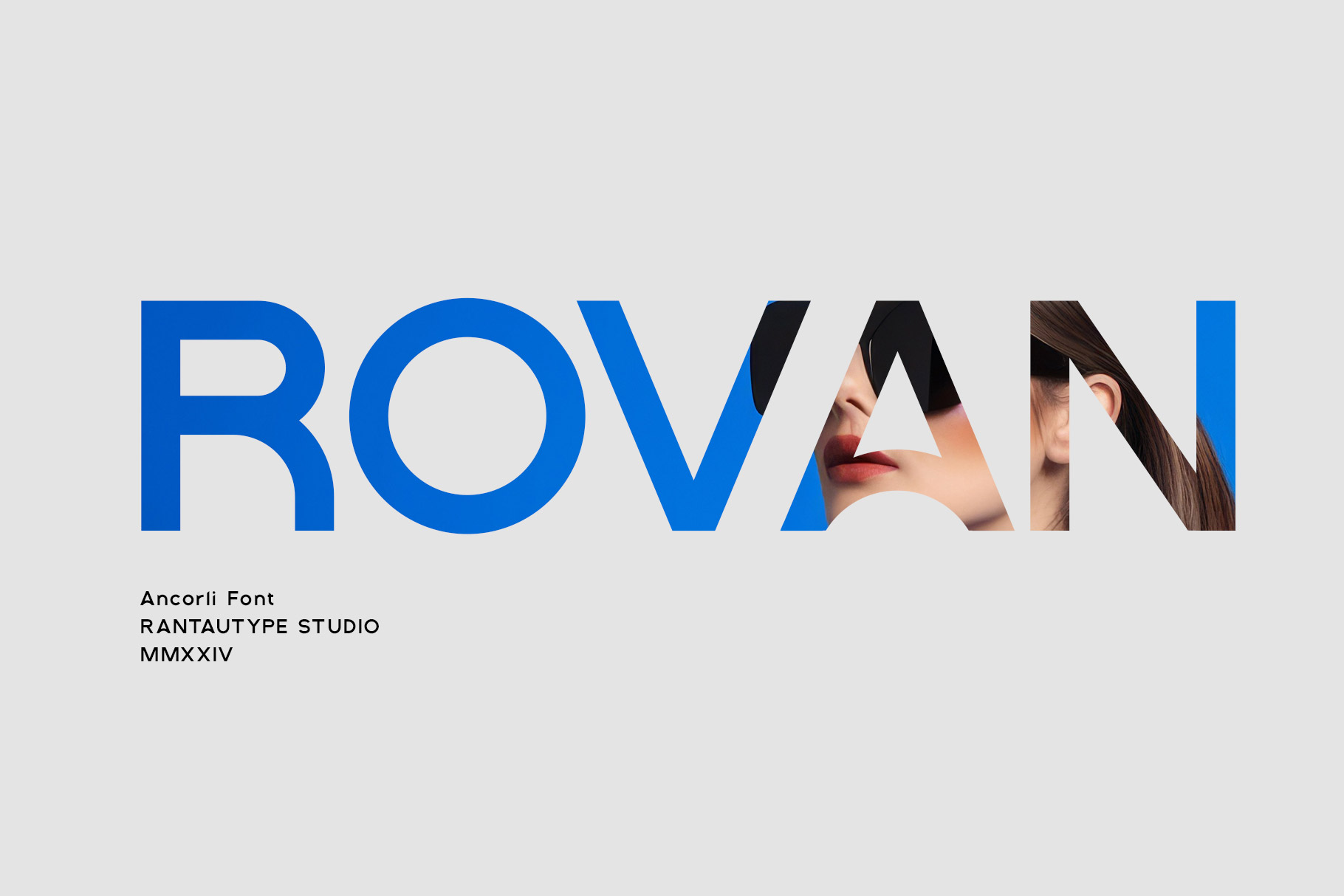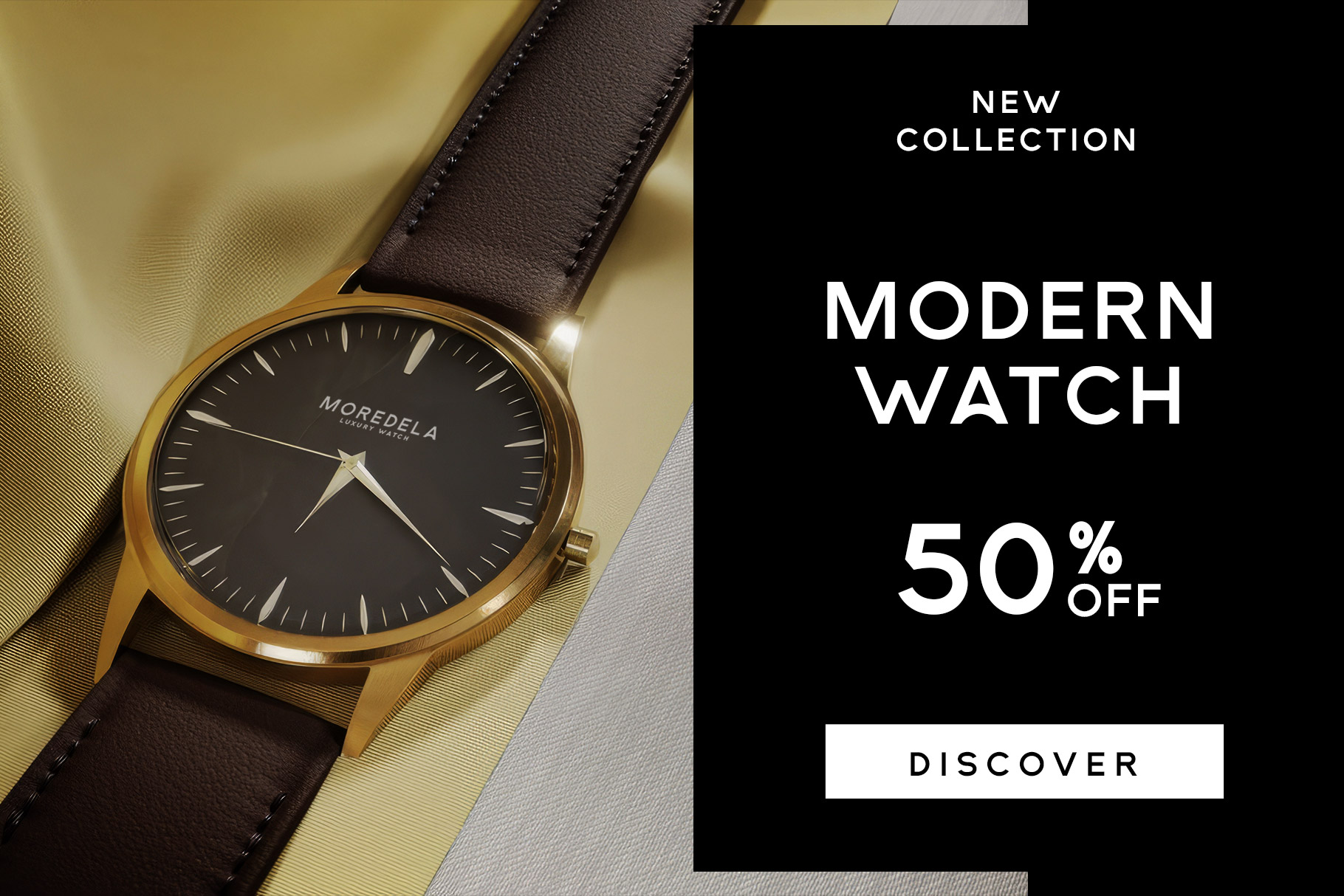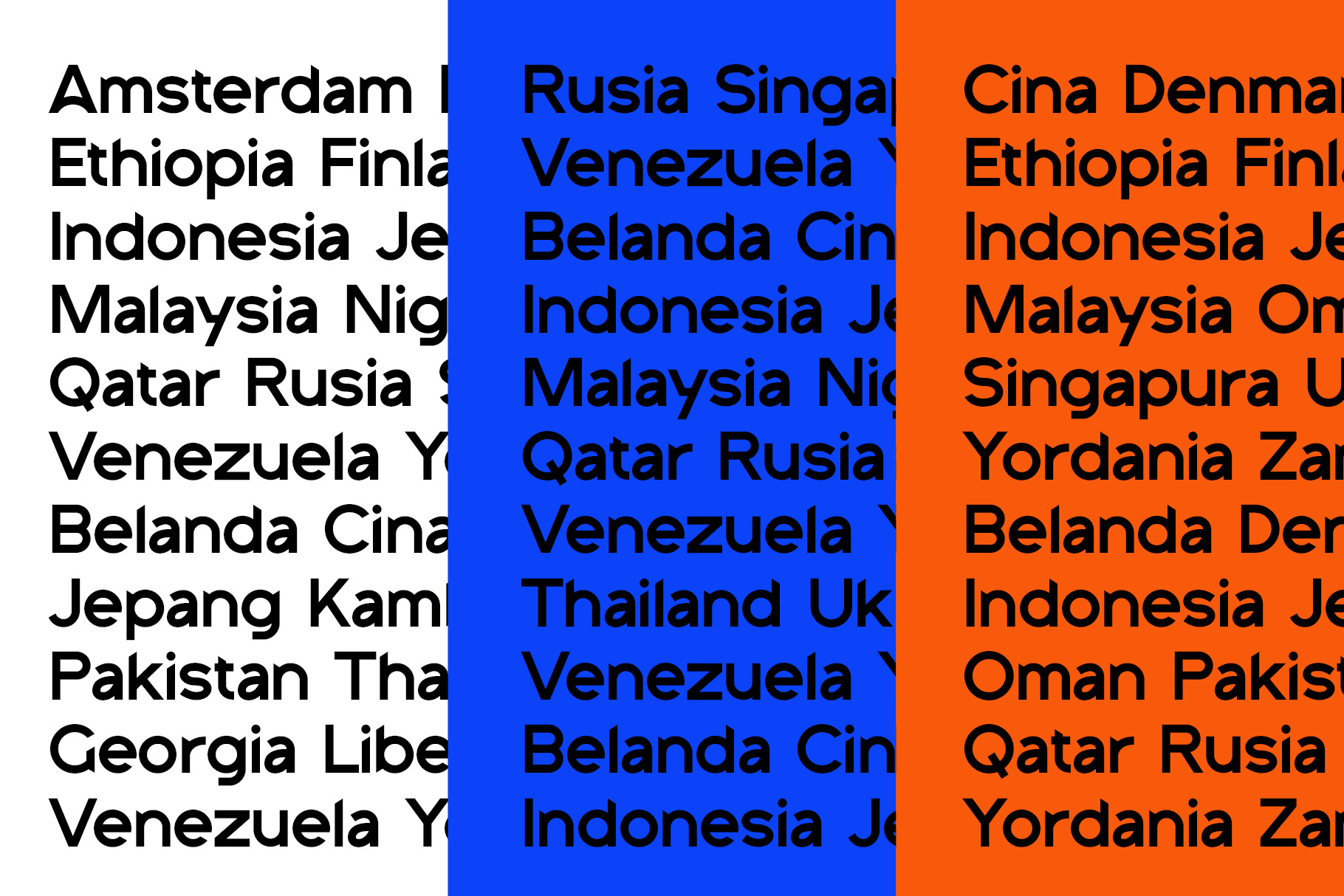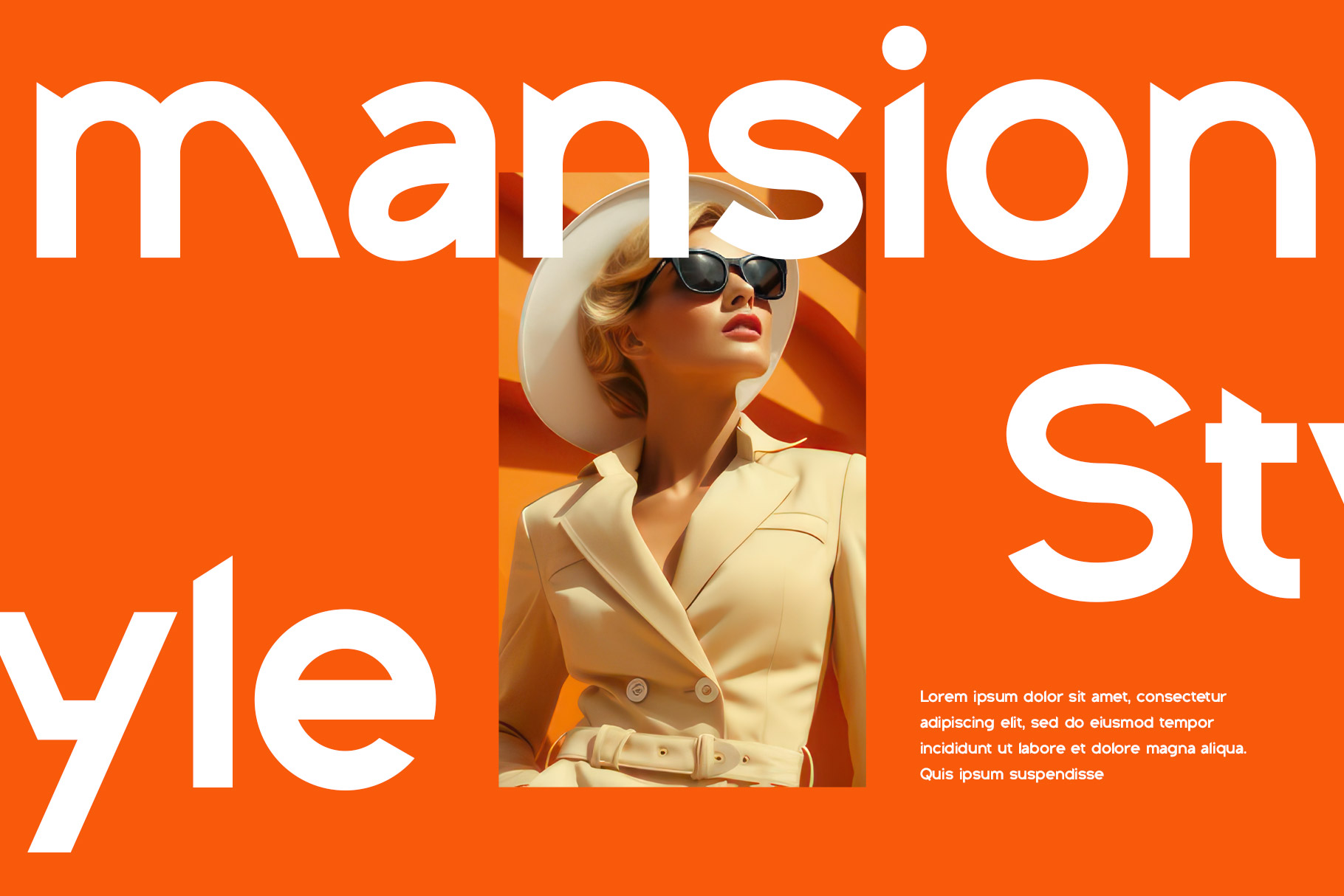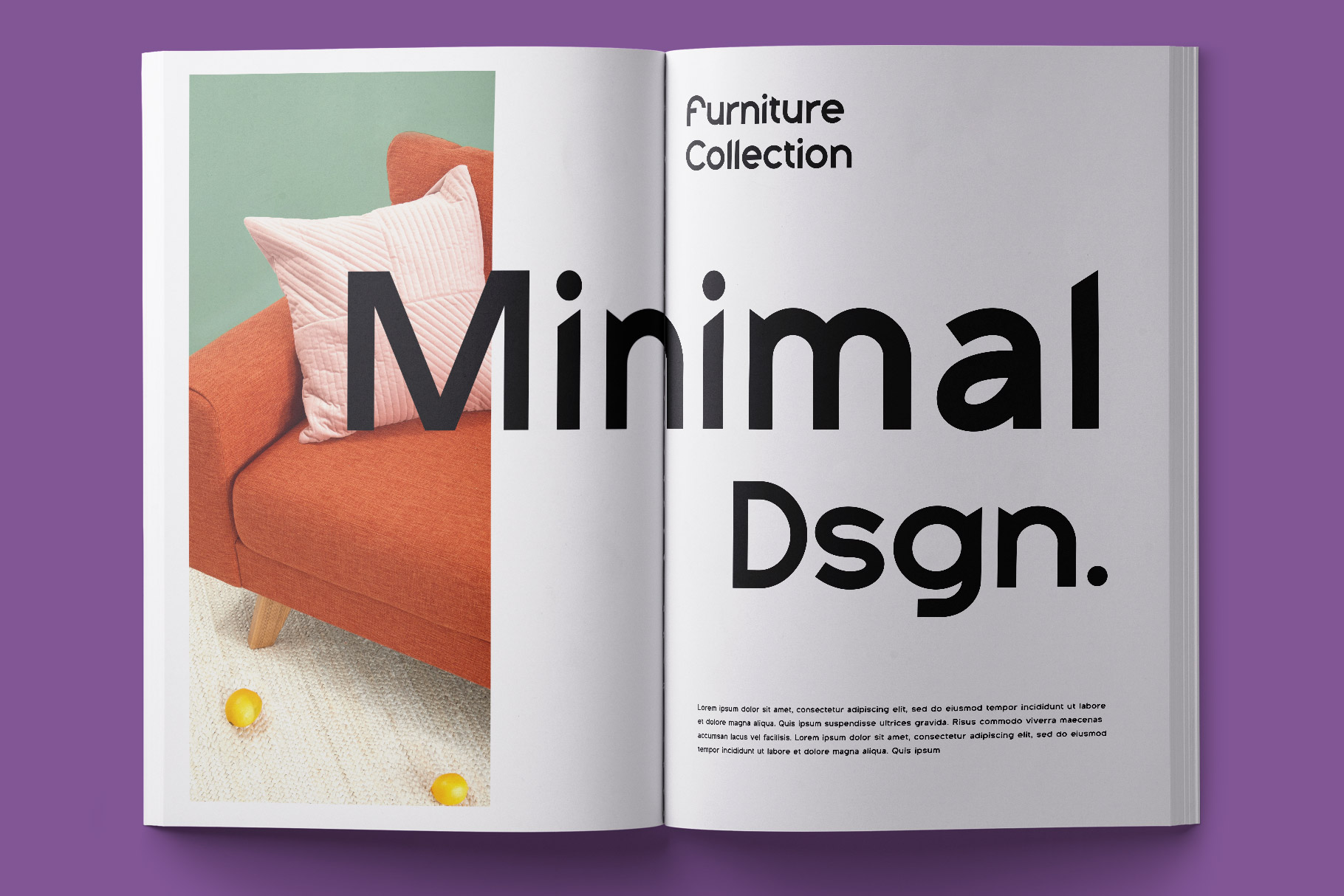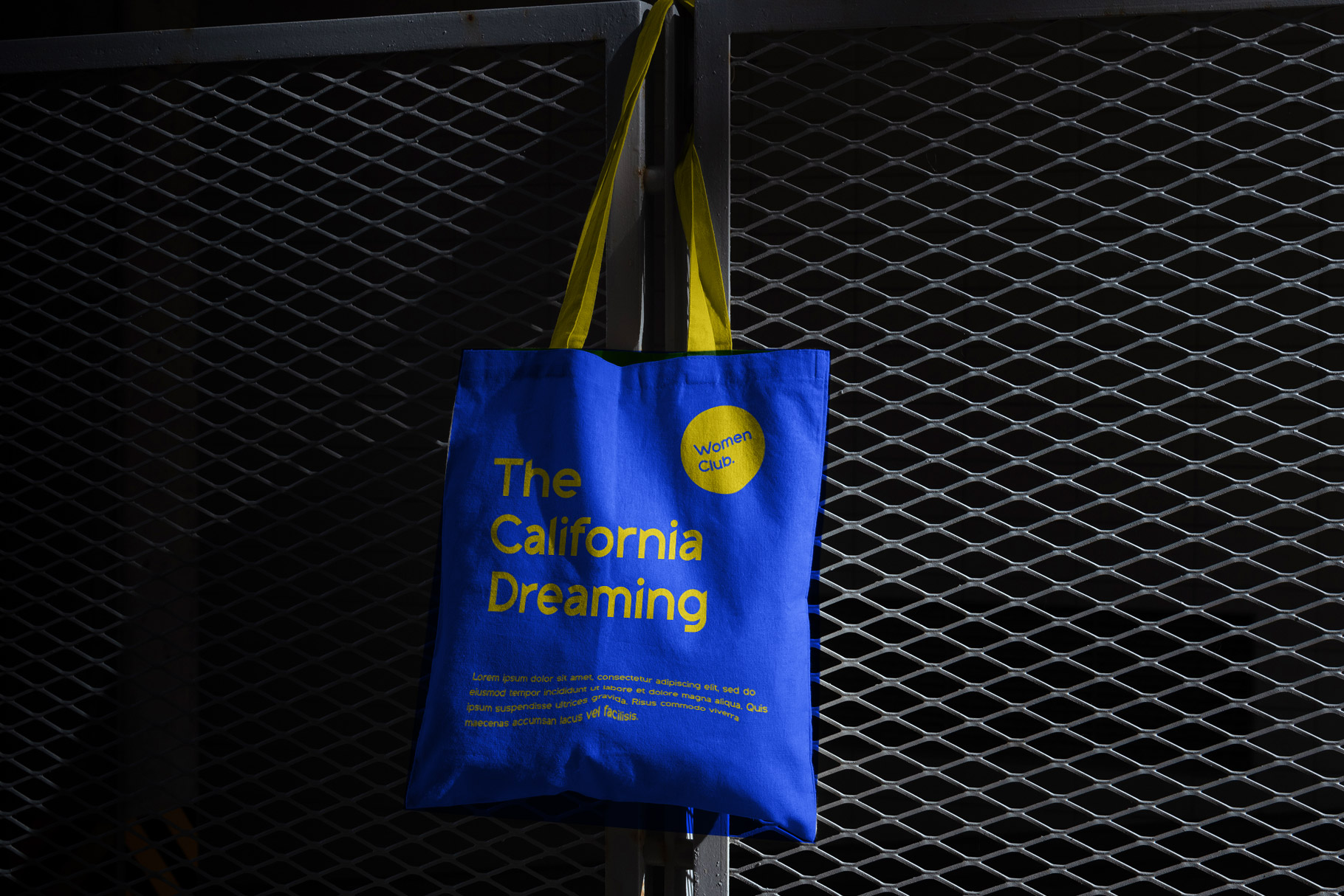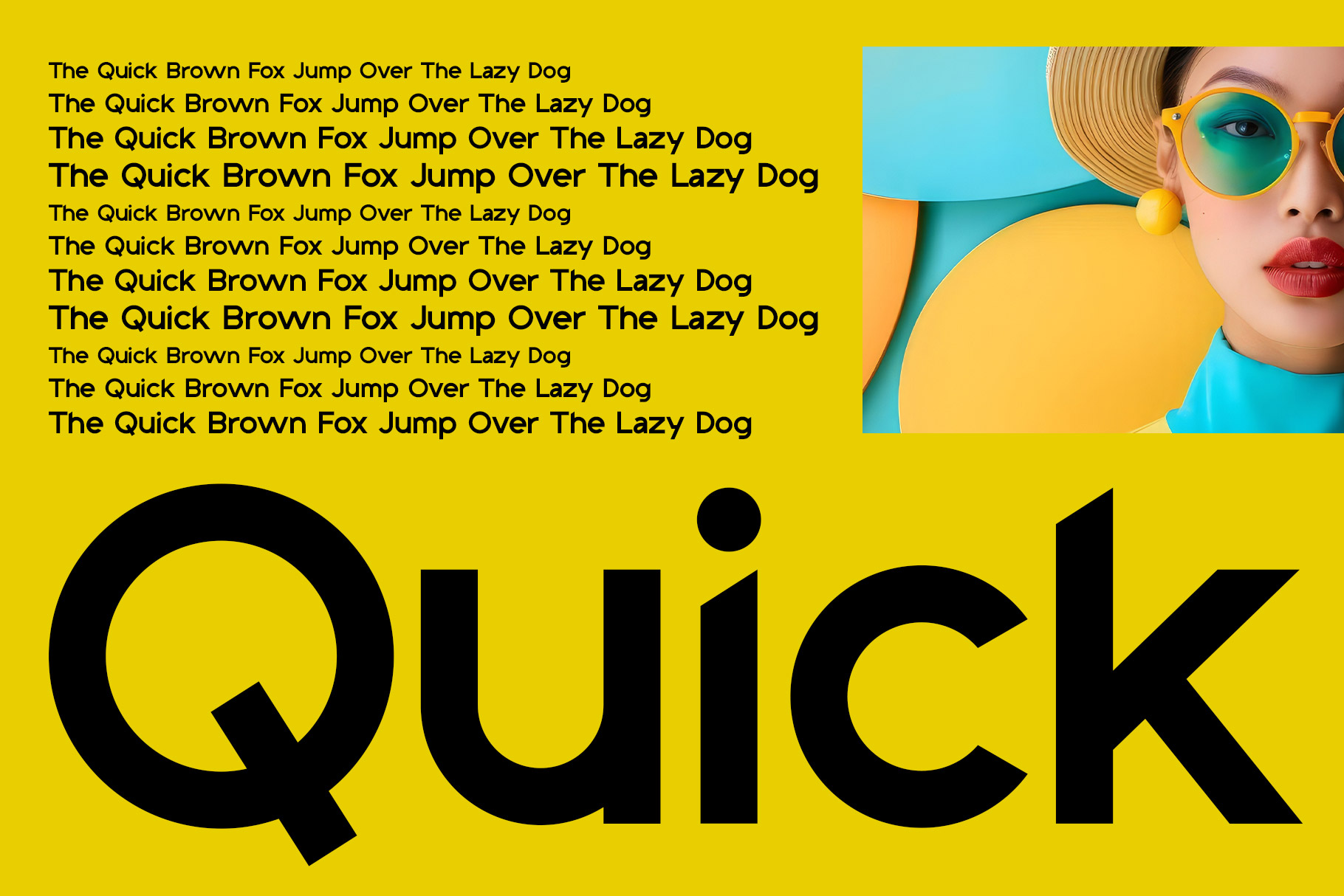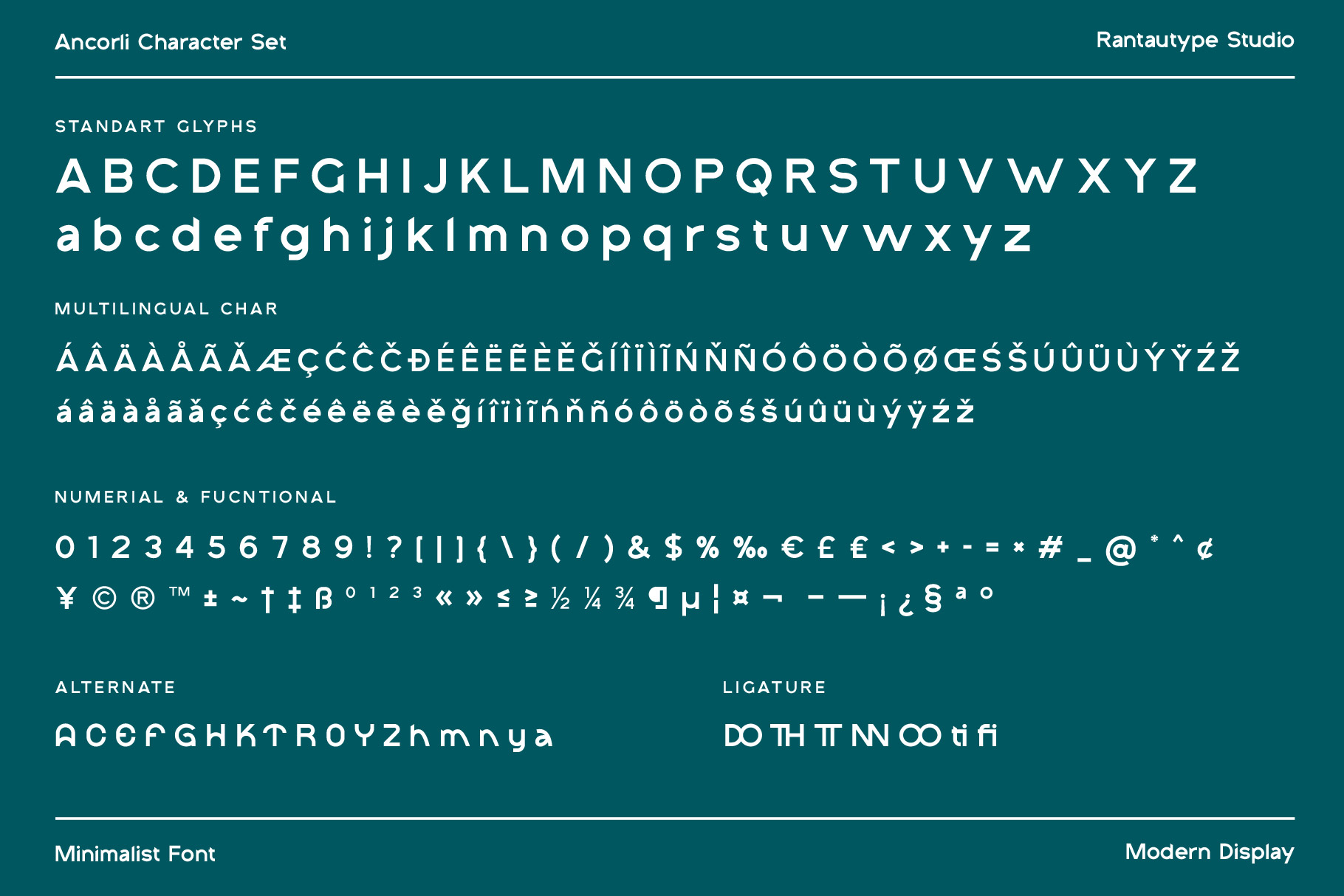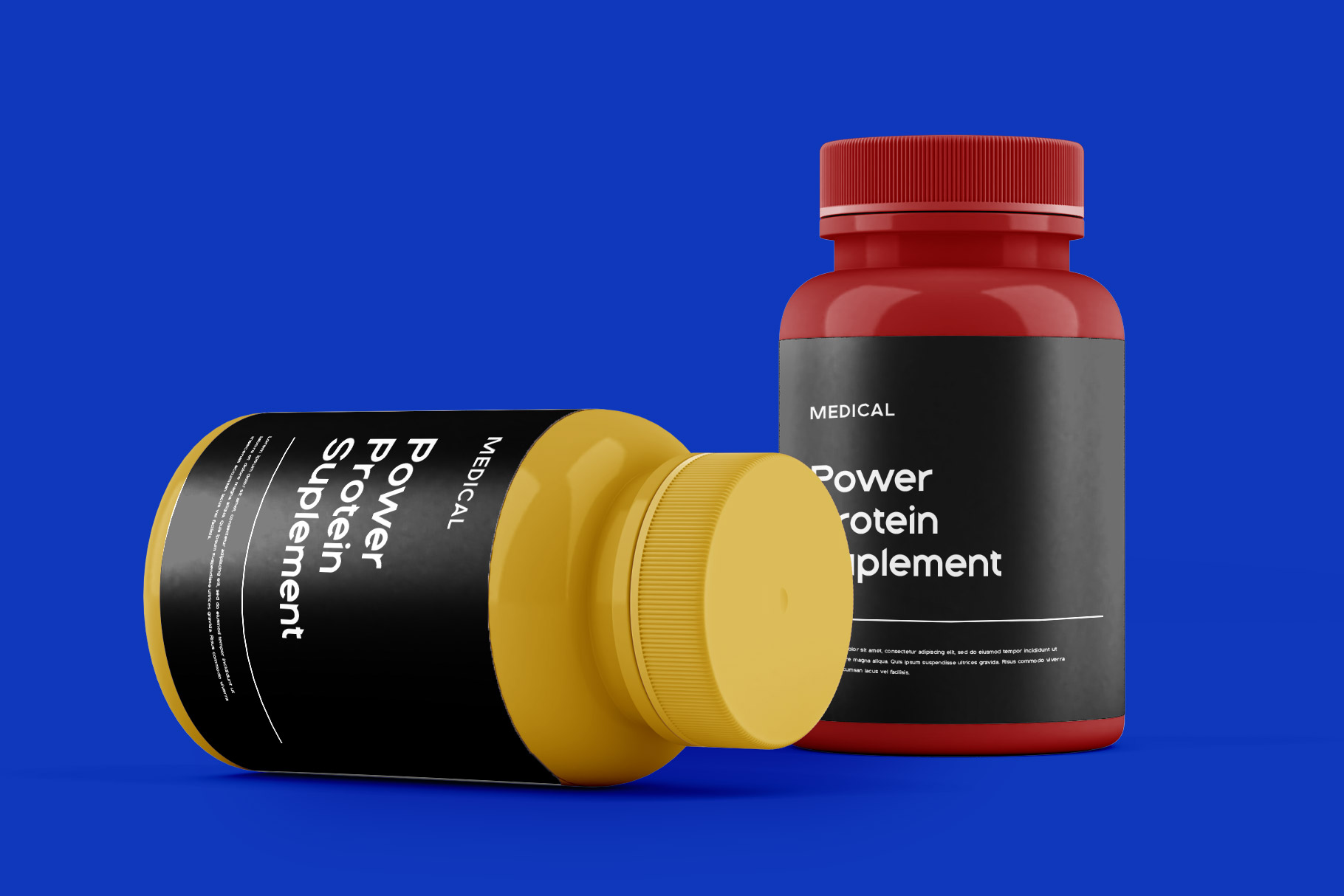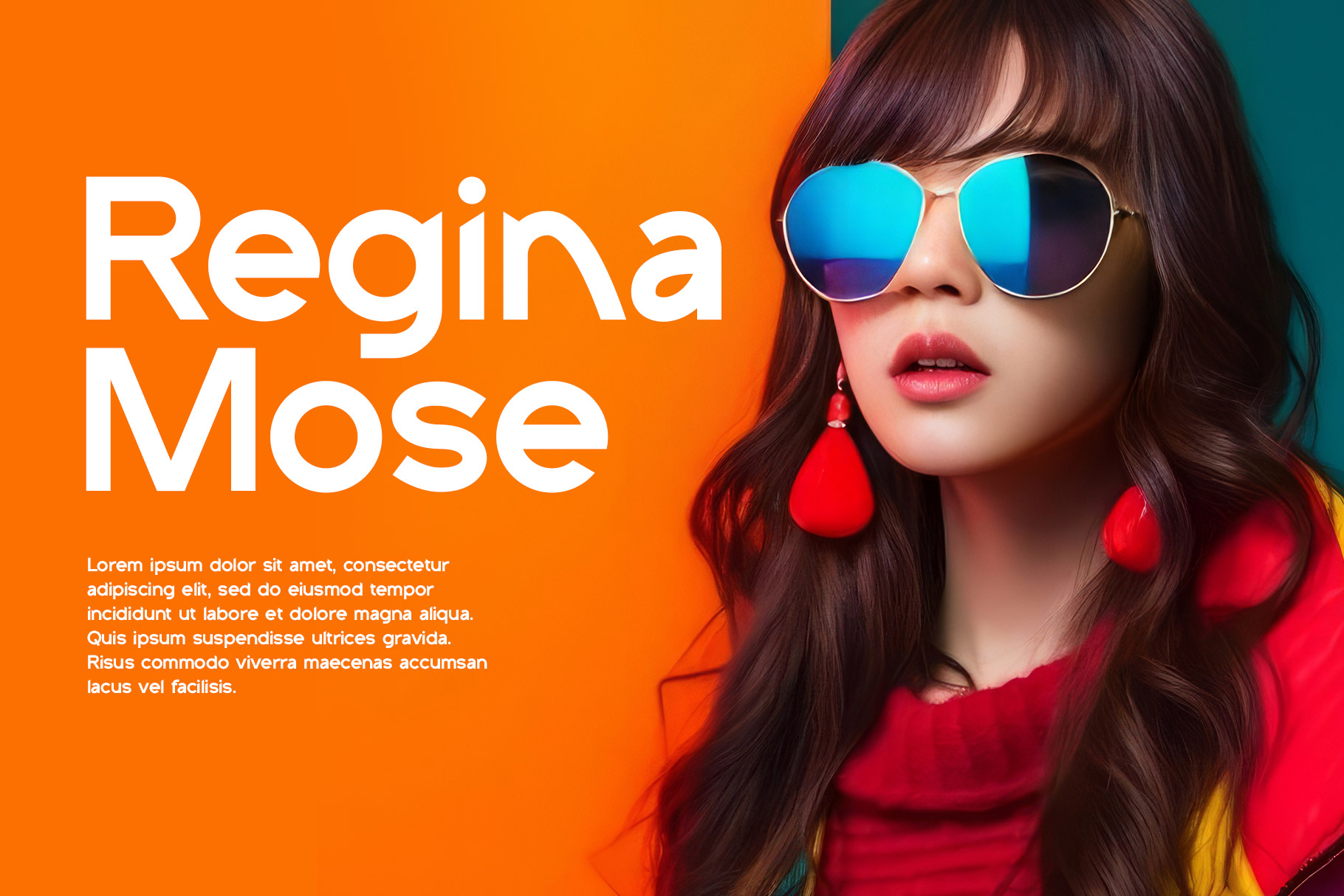
Ancorli Modern Display Sans Font
Ancorli is modern sans font insprire by aesthetic geometric shape. Ancorli give a clean and modern appearance with industrial tones. Ancoli come with alternate to make a different presentation when needed.